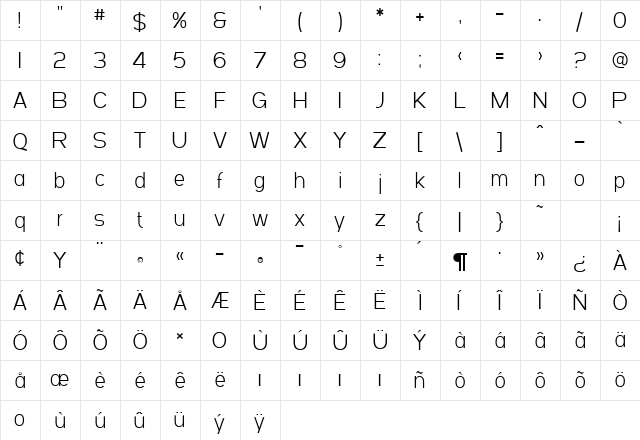
SF Arborcrest Light Regular
Design Context for SF Arborcrest Light Typeface
SF Arborcrest Light is a composed and adaptable typeface that performs quietly and consistently across a wide range of design contexts. The delicate stroke weight brings airiness and refinement to layouts.